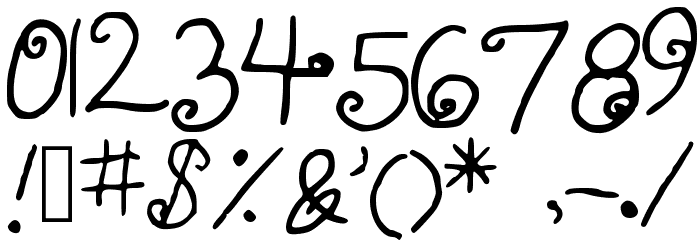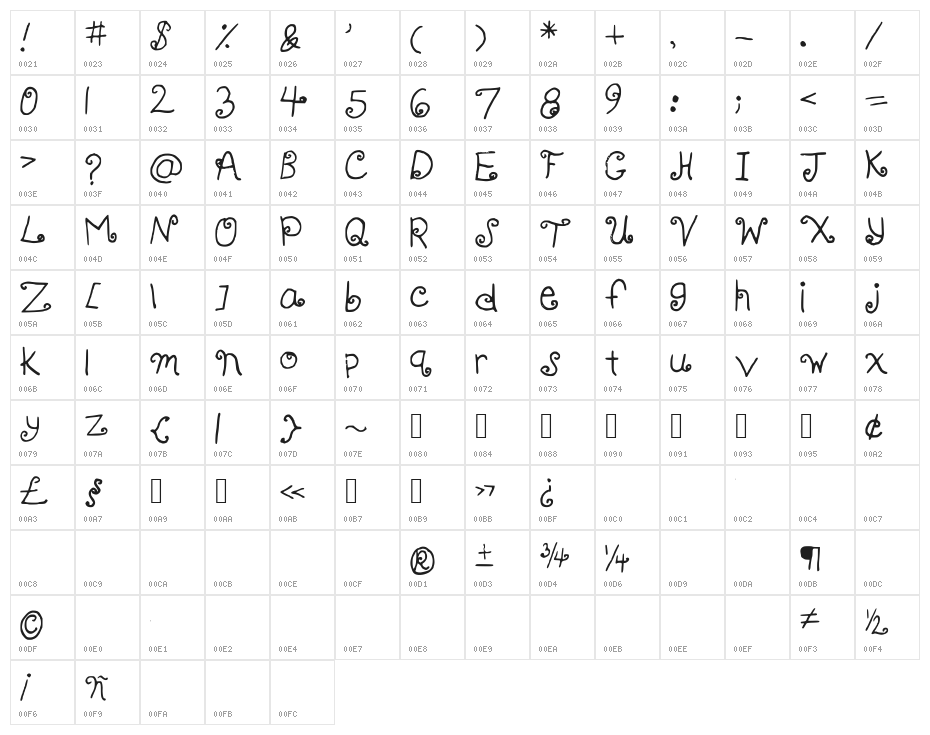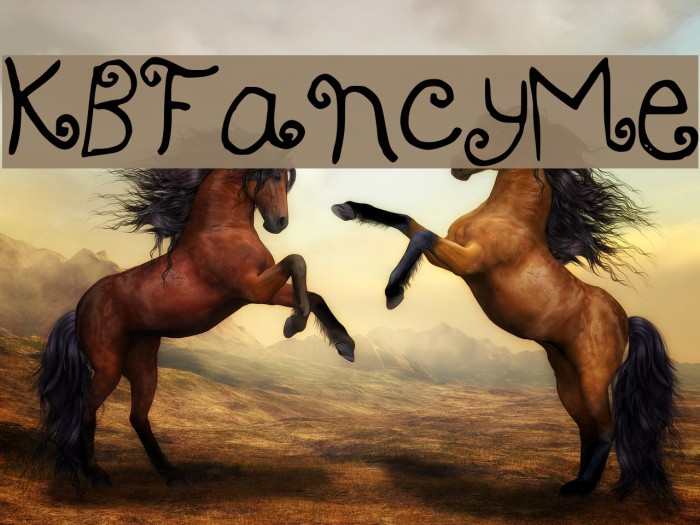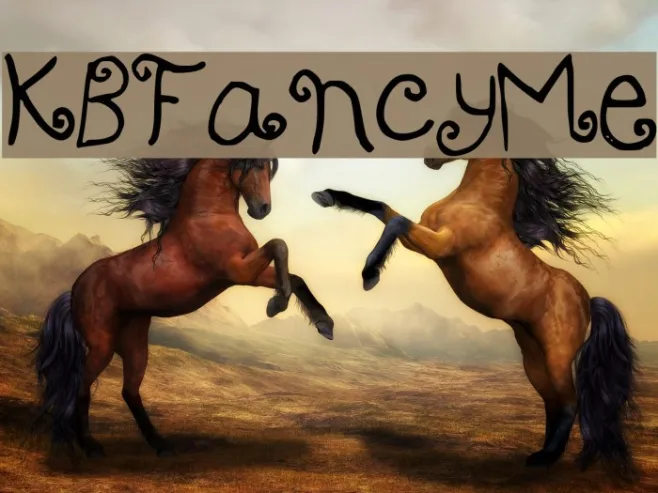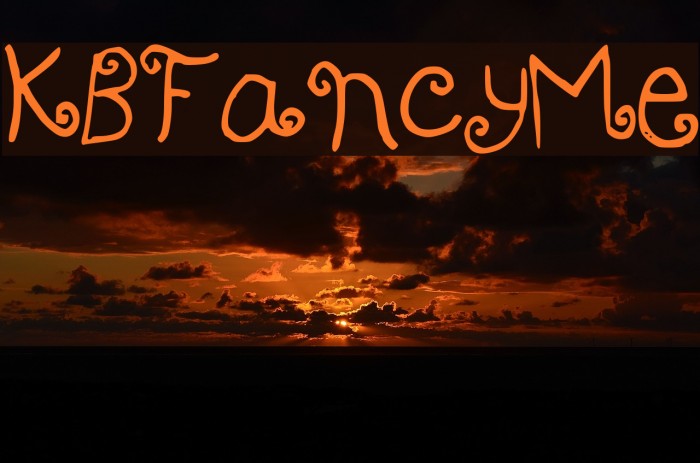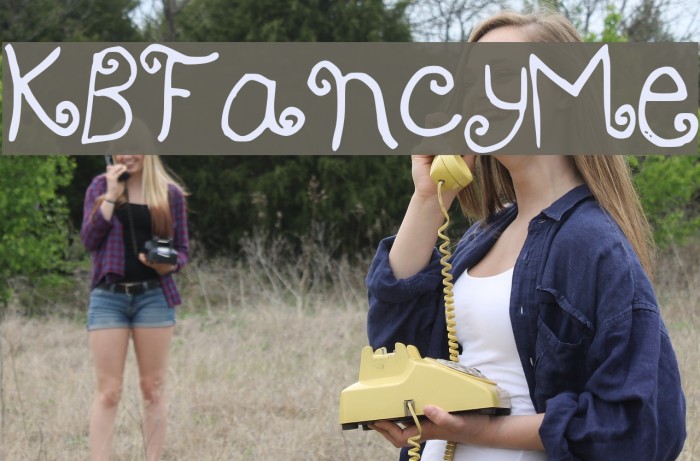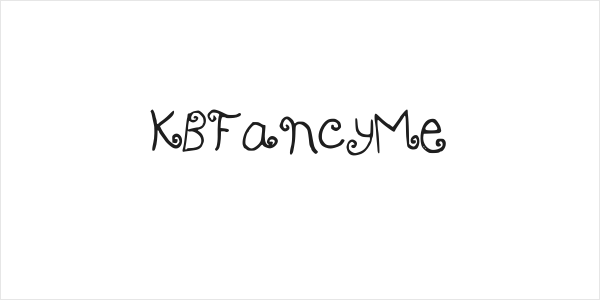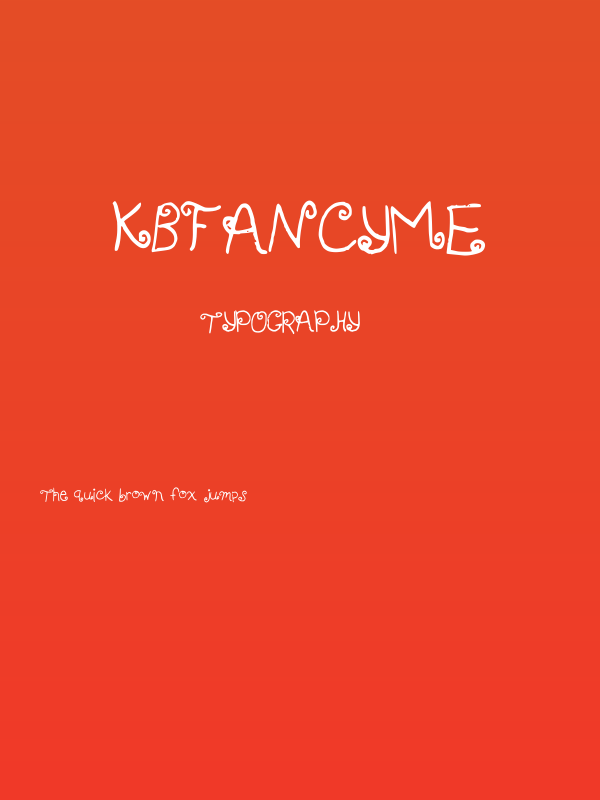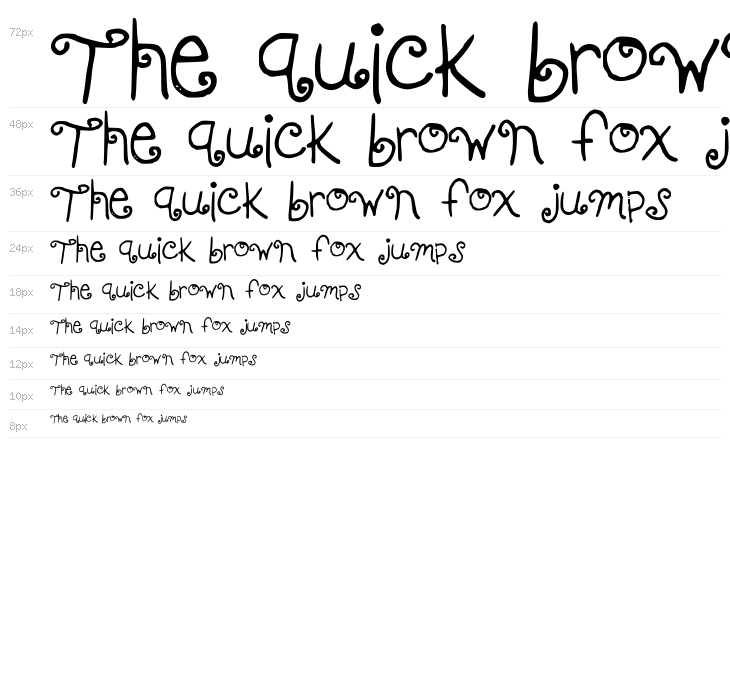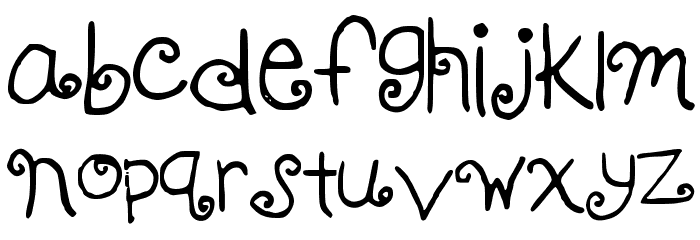
KBFancyMe Font
KBFancyMe Description
This whimsical font features playful, curly serifs and a hand-drawn aesthetic that gives it a unique, artistic flair. The uppercase letters are bold and expressive, with exaggerated loops and swirls that add character and charm. The lowercase letters maintain a similar style, with a slightly more subdued approach, making them highly legible while still retaining the font's quirky personality. Numbers and special characters are equally distinctive, with creative embellishments that make them stand out. This font is perfect for projects that require a touch of fun and creativity, such as children's books, playful branding, or artistic invitations.